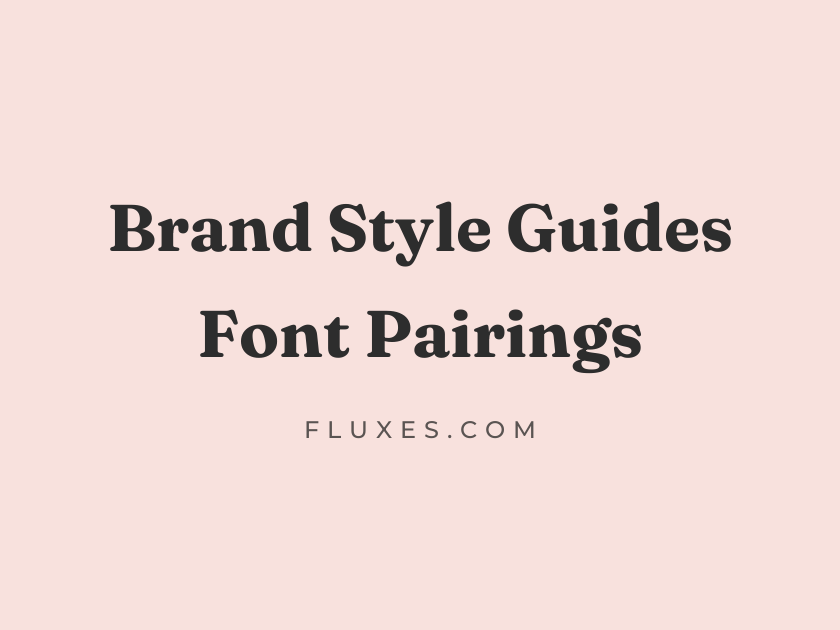
40 Best Font Pairings for Brand Style Guides
A brand style guide has to perform two jobs at once: it needs a heading voice with enough personality to signal identity, and a body voice calm enough to explain logo spacing, color codes, and tone-of-voice rules without getting in the way. The pairings below balance those roles using combinations that share proportions, contrast in weight, or come from complementary eras, so the guide itself becomes a small demonstration of the typographic discipline it’s asking teams to follow.
1. Fraunces + Inter
Fraunces brings a warm, slightly old-style serif character to headlines, while Inter’s neutral, highly legible letterforms handle the dense explanatory copy that style guides depend on. The contrast between expressive and functional keeps sections easy to scan.
2. Playfair Display + Source Sans 3
Playfair Display’s high-contrast strokes give a guide’s cover and section titles some editorial weight, and Source Sans 3 is built specifically for interface and documentation clarity. It’s a dependable choice for guides that need to feel polished but still read like reference material.
3. Libre Baskerville + Karla
Libre Baskerville was drawn for screen legibility, so it holds up well at heading sizes without feeling fussy, and Karla’s grotesque simplicity keeps long rule lists from feeling heavy. The pairing suits guides for publishers, agencies, or any brand with an editorial lean.
4. Cormorant Garamond + Nunito Sans
Cormorant Garamond is thin and refined, best reserved for larger display moments, while Nunito Sans supplies the rounded, friendly body text that keeps the guide approachable. This works well for luxury, beauty, or hospitality brands where the guide itself should feel considered.
5. Archivo Black + Archivo
Sharing a family means Archivo Black and Archivo align perfectly in proportion and rhythm, so headings feel like a natural extension of the text rather than a separate voice. It’s a low-risk pick for teams that want cohesion without hunting for a second typeface.
6. Poppins + Work Sans
Poppins’ geometric circles give headlines a confident, contemporary feel, and Work Sans balances that with warmer, more humanist proportions at body size. Tech and product brands often reach for this combination because it reads as current without tipping into trendy.
7. DM Serif Display + DM Sans
DM Serif Display and DM Sans were designed as companions, so their x-heights and spacing already agree before any adjustment is made. That built-in harmony makes them a fast, safe default for guides on a deadline.
8. Space Grotesk + IBM Plex Sans
Space Grotesk’s slightly quirky letterforms add character to section headers without sacrificing a technical feel, and IBM Plex Sans, built for corporate documentation, keeps the supporting text orderly. It suits software, fintech, and other systems-driven brands.
9. Bitter + Mulish
Bitter’s slab serifs give headings a sturdy, dependable presence, which suits brand rules meant to be taken seriously, while Mulish keeps the explanatory paragraphs light and unobtrusive. The pairing reads as trustworthy without feeling formal.
10. Oswald + Merriweather
Oswald’s condensed, upright forms work efficiently in tight header spaces, and pairing a sans headline with a serif body flips the usual expectation, giving the guide a distinct editorial personality. Merriweather’s sturdy screen-tested letterforms carry long passages comfortably.
Choosing between these pairings
Start from the brand’s personality rather than personal preference: a heritage brand generally calls for a serif with historical roots, while a product or software brand usually reads better with a geometric or grotesque sans.
Limit the guide itself to the same two typefaces it’s recommending, since a style guide that breaks its own rules undermines the argument for consistency.
Test both fonts at the smallest size the guide will actually use, such as table captions or footnotes, before finalizing the pairing.